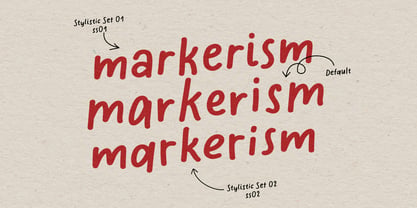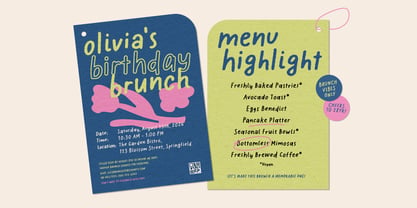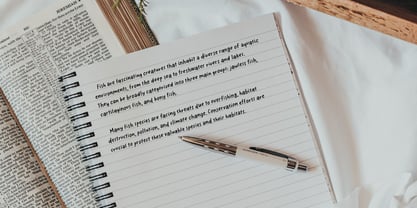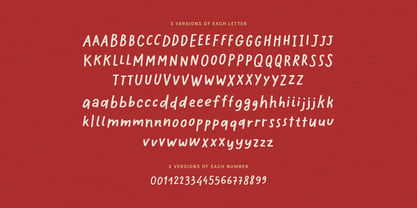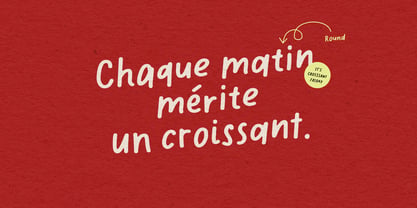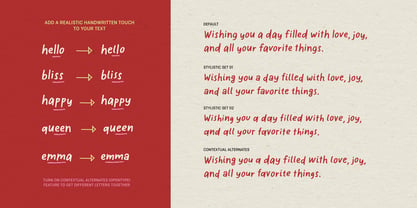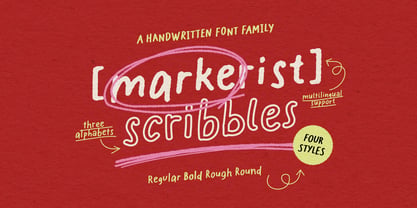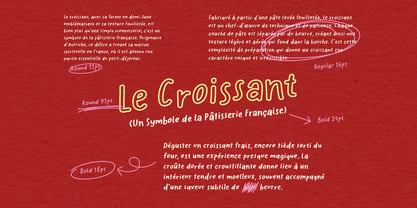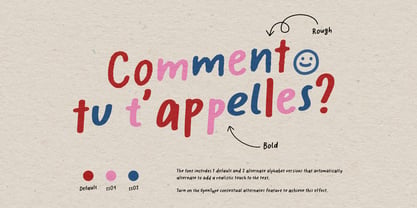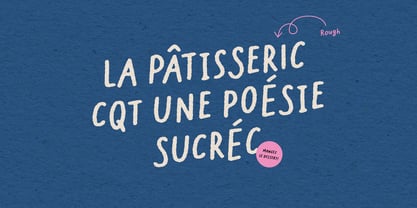
Markerist
The Markerist Font Family was designed by Hai Anh Nguyen and published by type peace. Markerist contains 4 styles and family package options. More about this family
Markerist is a maker-style handwritten font family. This typeface comes with a full set of handmade alphabets, numbers, punctuation marks, and symbols, providing you with everything you need for comprehensive and cohesive design work. Perfect for adding a personal touch to your projects, from invitations and greeting cards to branding and social media graphics. Simply turn on the Contextual Alternates feature to add a realistic handwritten touch to your text.